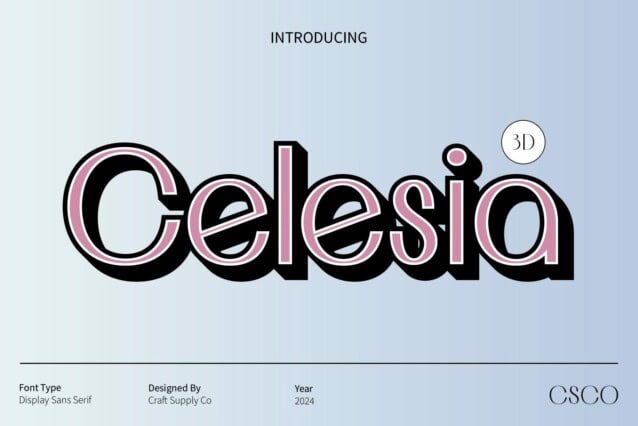
Celesia 3D Font
Celesia 3D Font is a modern sans serif font that showcases clean and sharp geometric shapes, embodying a contemporary and professional impression. Its design is characterized by simple yet proportional lines that enhance readability while simultaneously capturing attention. This balance of clarity and visual intrigue makes Celesia 3D an ideal choice for a wide range of design applications. Whether used for headlines or body text, this font stands out with an air of sophistication that suits both corporate and creative environments.